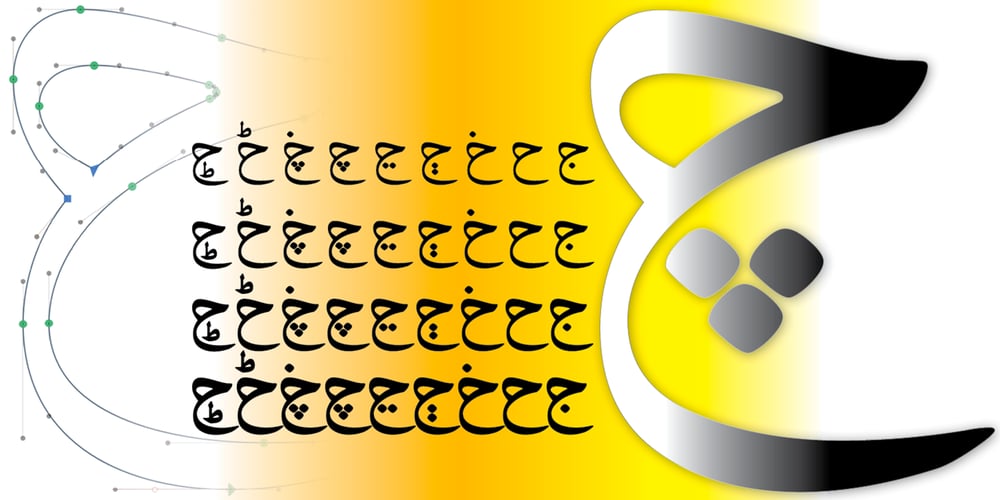
Grafikar Naskh
Grafikar Naskh font
Grafikar Naskh Font Family was designed by Ammar Bouras and published by GrafikarFonts. Grafikar Naskh contains 4 styles and family package options. GrafikarNaskh is a typeface inspired by the richness of Arabic calligraphy, particularly the Naskh style. It has been designed to meet the diverse needs of graphic designers and creators, whether for headlines, body text, or other graphic elements.This typeface offers flexibility in use, allowing for both horizontal and vertical scaling while maintaining legibility.Language Support: GrafikarNaskh is suitable for all languages that use Arabic script, making it perfect for a wide range of multilingual projects. With 1,359 glyphs, including 88 stylistic alternates, 39 alternative characters, and 1,146 ligatures, this typeface offers a great variety of options.Positioning of Diacritics (Tash’kil): GrafikarNaskh provides careful positioning of diacritics, such as fatha-ar, shadda-ar, and other marks. These variations are aesthetically adjusted to fit the width of different letters, such as beh-ar.medi and sad-ar.medi, contributing to a harmonious and elegant presentation of the text.Compatible Numbers: GrafikarNaskh includes both Arabic and Latin numerals.In the GrafikarFonts collection, GrafikarNaskh complements the style of Waleed (1962 Glyphs), which also features a wide range of glyphs and supports Latin.